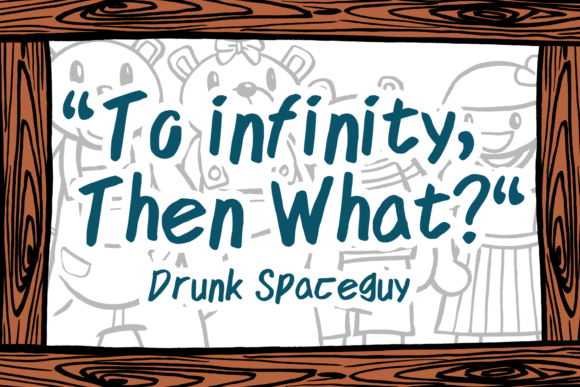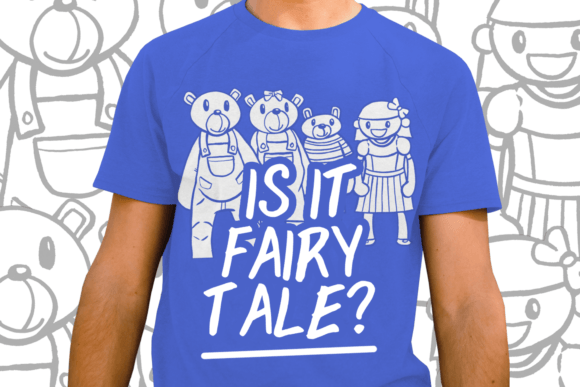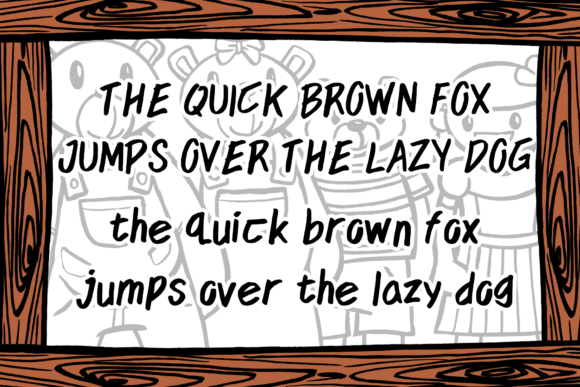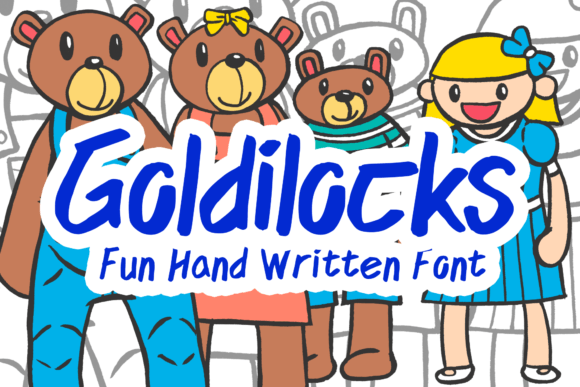
Introducing Goldilocks Font: The Perfect Addition to Your Design Toolbox
Are you a designer or crafter looking for a font that can add a touch of whimsy and playfulness to your projects? Look no further than the Goldilocks Font, a fairy tale-inspired font that’s perfect for a wide range of design applications. In this article, we’ll take a closer look at the Goldilocks Font, its features, and how you can use it to create stunning designs that will capture the hearts of your audience.
What is Goldilocks Font?
Goldilocks Font is a beautiful, handwritten font that’s inspired by the classic fairy tale of Goldilocks and the Three Bears. This font is designed to bring a sense of fun, playfulness, and approachability to your designs, making it perfect for projects that require a casual touch. Whether you’re creating greeting cards, stickers, posters, or any other type of design, Goldilocks Font is a versatile and reliable choice.
Features of Goldilocks Font
So, what makes Goldilocks Font so special? Here are just a few of its key features:
- Handwritten style: Goldilocks Font has a beautiful, handwritten style that’s perfect for creating designs that feel personal and approachable.
- Versatile: This font is incredibly versatile, making it suitable for a wide range of design applications, from greeting cards to posters and stickers.
- Easy to read: Despite its playful style, Goldilocks Font is easy to read, making it perfect for designs that require a clear and concise message.
- Fairy tale charm: With its fairy tale inspiration, Goldilocks Font adds a touch of magic and wonder to your designs.
How to Use Goldilocks Font
Goldilocks Font is incredibly easy to use, and its versatility makes it suitable for a wide range of design applications. Here are just a few ideas to get you started:
- Greeting cards: Add a personal touch to your greeting cards with Goldilocks Font, perfect for birthdays, weddings, and other special occasions.
- Stickers: Create fun and playful stickers with Goldilocks Font, perfect for planners, journals, and other craft projects.
- Posters: Use Goldilocks Font to create eye-catching posters for events, promotions, and other marketing campaigns.
- Social media graphics: Add a touch of whimsy to your social media graphics with Goldilocks Font, perfect for creating engaging and shareable content.
Tips for Using Goldilocks Font
Here are a few tips to help you get the most out of Goldilocks Font:
- Experiment with colors: Goldilocks Font looks great in a variety of colors, so don’t be afraid to experiment and find the perfect hue for your design.
- Mix and match: Combine Goldilocks Font with other fonts and design elements to create a unique and eye-catching design.
- Keep it simple: Don’t overcomplicate your design – Goldilocks Font is perfect for simple, yet effective designs.